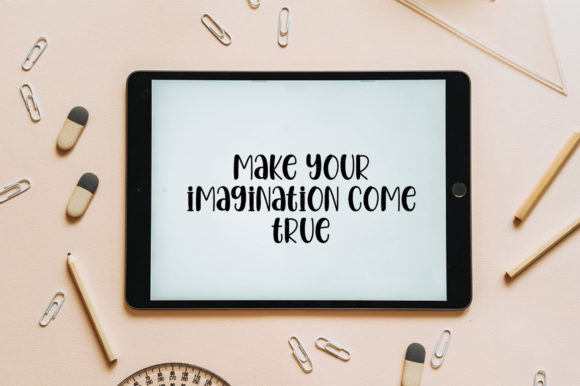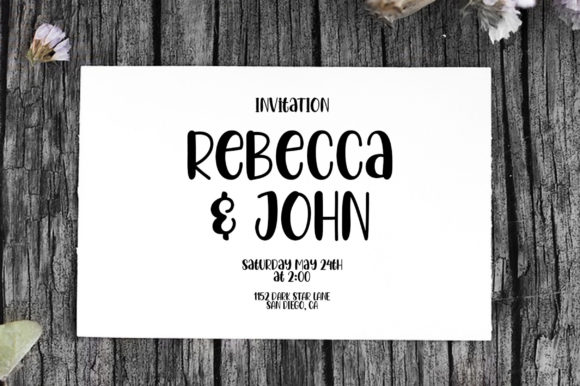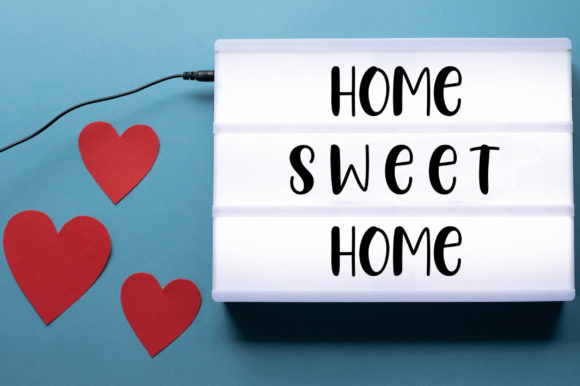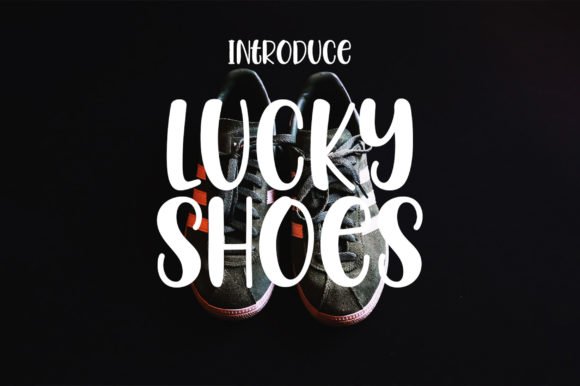
Introduction to Lucky Shoes Font
Lucky Shoes is a cute and charming display font.
Whimsical and a bit quirky, this font will brighten up each of your designs Add it confidently to your projects, and you will love the results.
Lucky Shoes Font offers exceptional quality and versatility, making it a valuable addition to your design toolkit. Whether you’re creating for personal projects or commercial use, Lucky Shoes Font delivers professional results.